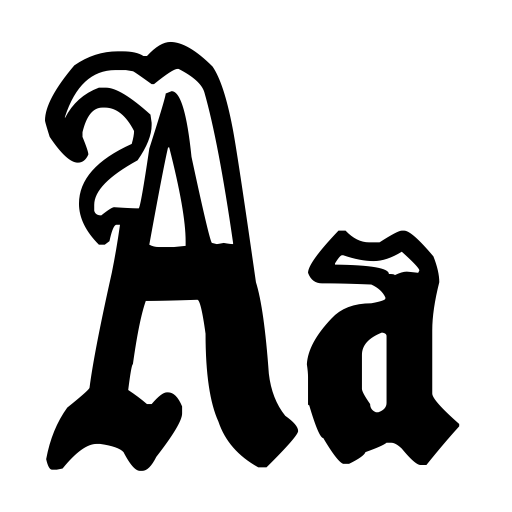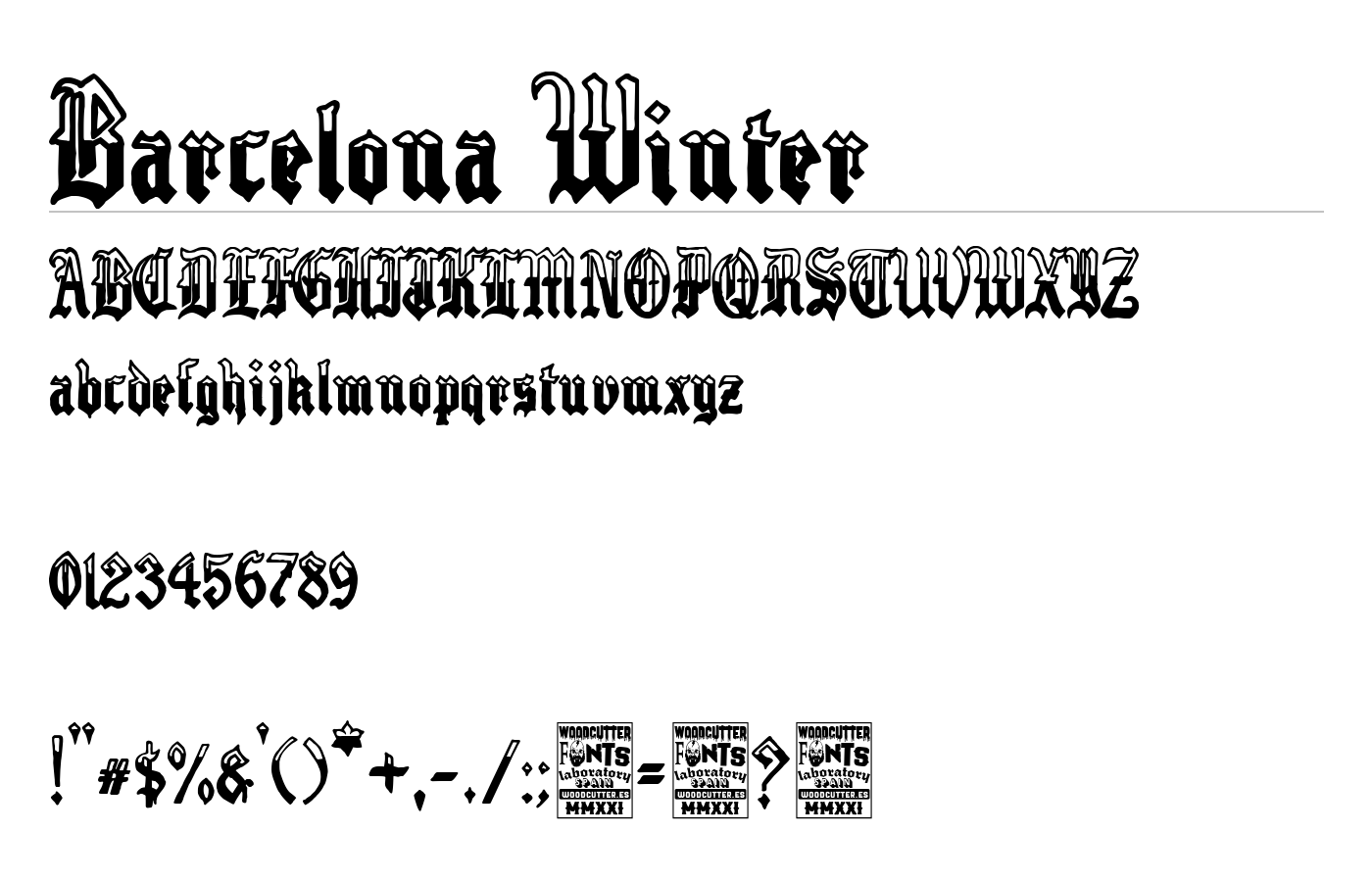
Barcelona Winter is a bold, blackletter-style serif font with strong, sharp edges and a striking, medieval-inspired design. Its high contrast and dense letterforms give it a dramatic, vintage feel, making it perfect for branding, posters, and headlines that aim to evoke tradition or a gothic aesthetic. This font works best when used for eye-catching display text that demands attention and character.
Barcelona Winter Font
About Barcelona Winter Font